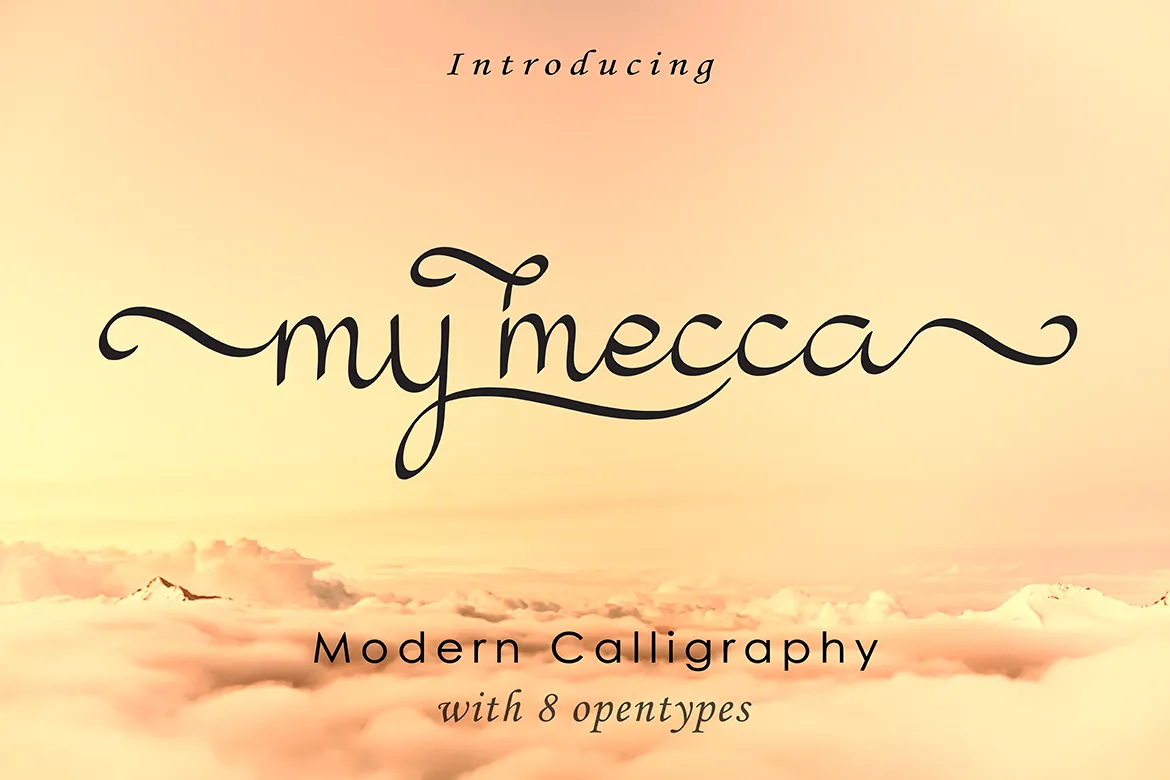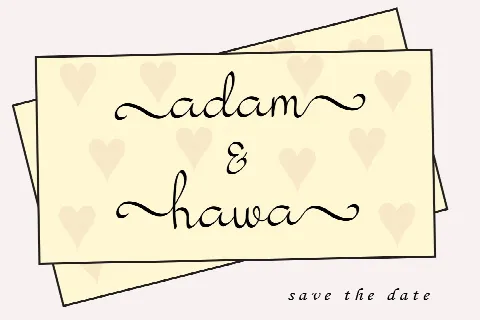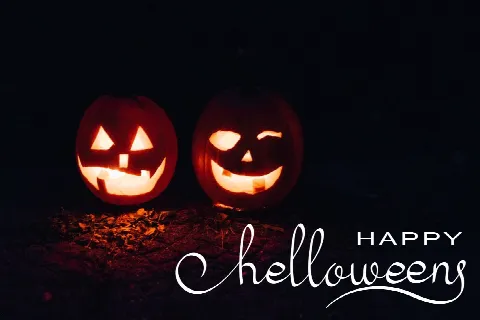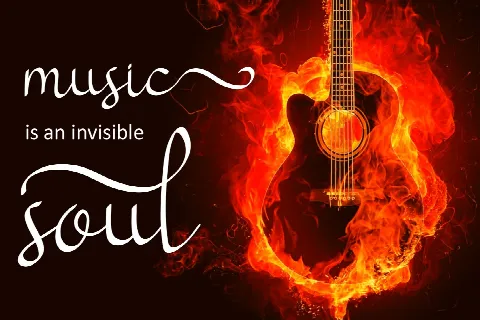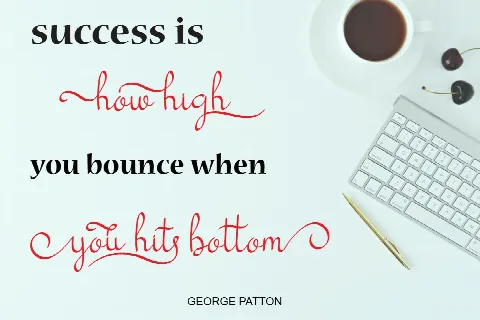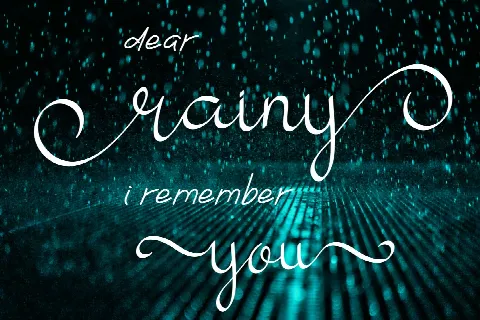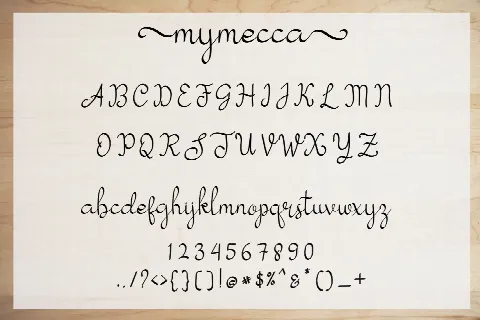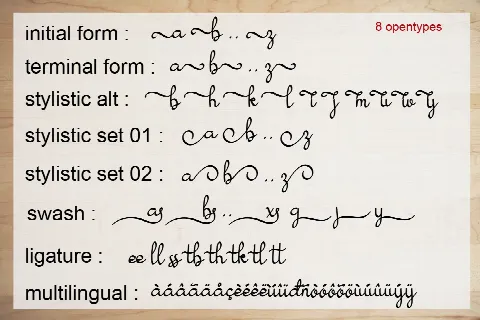
My Mecca
My Mecca is a modern calligraphy script font. Has a modern feel and natural writing style. This is suitable for logos, watermarks on photography, signatures, quotes, album covers, business cards, clothing, magazines, posters, and more!
As usual ,the font comes with many opentype features such as ligatures, stylistic set alternates, etc and also support multilingual. You can access all those alternate characters by using Opentype or Glyph program such as Adobe Illustrator, Adobe InDesign, CorelDraw etc.
AminMario